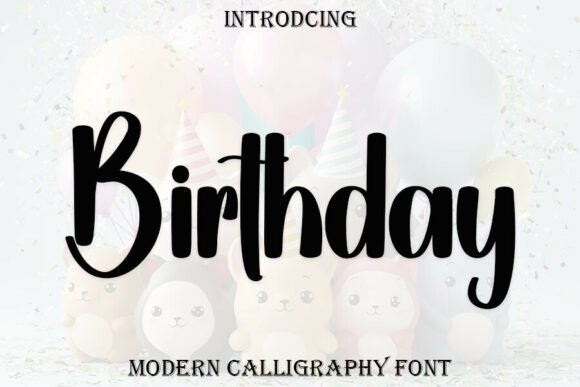
Unleash the Magic of Birthday Font
There’s nothing quite like the thrill of brainstorming ideas for a new design project, especially when it comes to festive occasions like birthdays and holidays. As you sit down with your sketchbook or computer, the blank page stares back at you, waiting for inspiration to strike. And then, it hits you – the perfect font to capture the essence of the celebration. Enter Birthday Font, a merry and enchanting typeface that’s sure to add a touch of whimsy to your designs.
This charming font is perfect for greeting cards, gift tags, and holiday-themed projects, and its PUA encoded design makes it easy to access all the amazing glyphs and ligatures. Whether you’re a seasoned designer or just starting out, the Birthday Font is a valuable tool to have in your typography arsenal, helping you to create truly magical and memorable designs that shine with the spirit of celebration.
Birthday Font Key Features
- Font Family: Birthday Font is a unique, custom-designed font family, ideal for celebrating birthdays and special occasions.
- Unique Characteristics: The font features playful, cursive script lines, and decorative flourishes, making it perfect for creating eye-catching birthday invitations, cards, and party decorations.
- Font Weight and Style: The font family includes various weights (Light, Regular, Bold, and Extra Bold) and styles (Script and Regular), allowing for flexibility in design applications.
Birthday Font Review
I’ve had the chance to work with the Birthday Font, and I must say it’s a unique and playful choice for any project. ✨ The font’s cursive script and celebratory vibe make it perfect for birthday invitations, party decorations, or any other occasion that calls for a festive atmosphere. ✨ The font is also highly customizable, allowing you to adjust the size, color, and style to fit your specific needs.
- Works well for informal or social projects
- Perfect for birthdays, weddings, or other celebrations
- Unique and playful design
However, I do have a few reservations about the font. ⚠️ One of the main limitations is that it may not be suitable for formal or professional projects. The font’s playful nature may come across as unprofessional in certain contexts. Additionally, the font’s size and style may not be optimized for certain screen resolutions or devices.
Overall, I think the Birthday Font is a great choice for the right project. While it may not be suitable for all occasions, it’s perfect for those who want to add a touch of whimsy and celebration to their design. With a little creativity and customization, the Birthday Font can be a real showstopper.
Getting the Most Out of the Birthday Font
For the best results, use the Birthday Font in bold and bright colors to create a festive atmosphere.
Experiment with different font sizes and styles to create visual interest and emphasis.
Combine the Birthday Font with other design elements, such as balloons and confetti, to create a cohesive and celebratory design.
The Birthday Font is ideal for:
Creating custom birthday invitations and cards.
Designing party banners and decorations.
Adding a personal touch to birthday social media posts and messages.